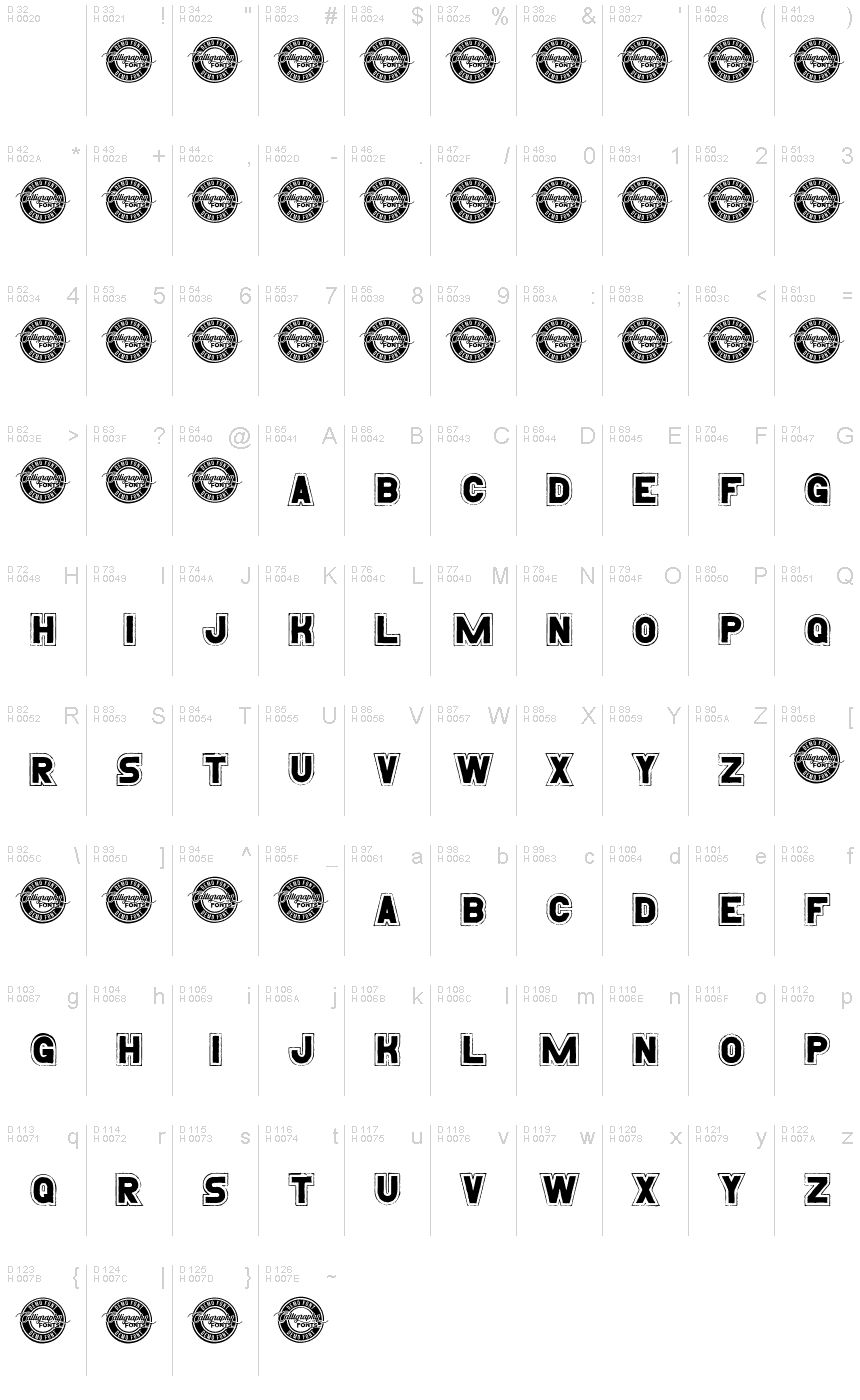
Roughstar Demo
Roughstar by Shalsha & Sarah SP is a display font with an eroded style that brings a raw and edgy vibe to any project. This extra-bold font is perfect for creating eye-catching headlines, titles or logos, adding a touch of grit and attitude. Whether you're designing album covers, posters, t-shirts, or even websites or mobile apps, Roughstar will give your work a unique and rebellious look that will stand out from the crowd. Try it out for projects that need a bit of roughness and personality – from rock bands to streetwear brands to alternative magazines.